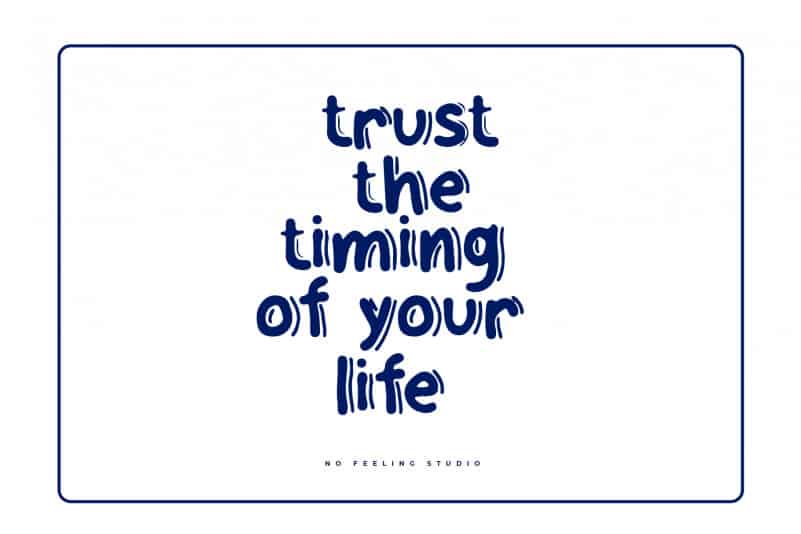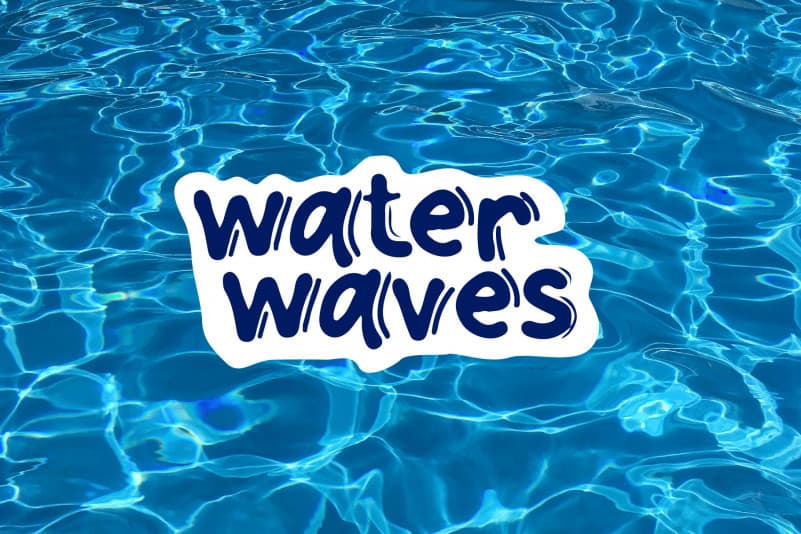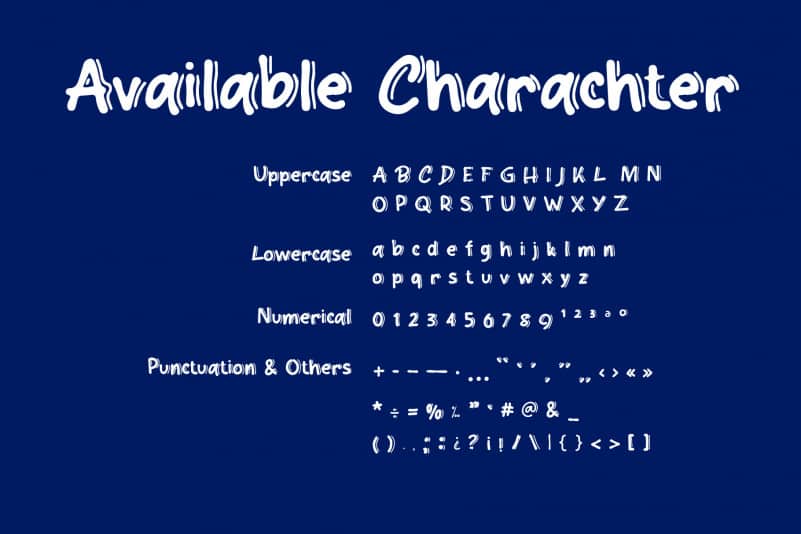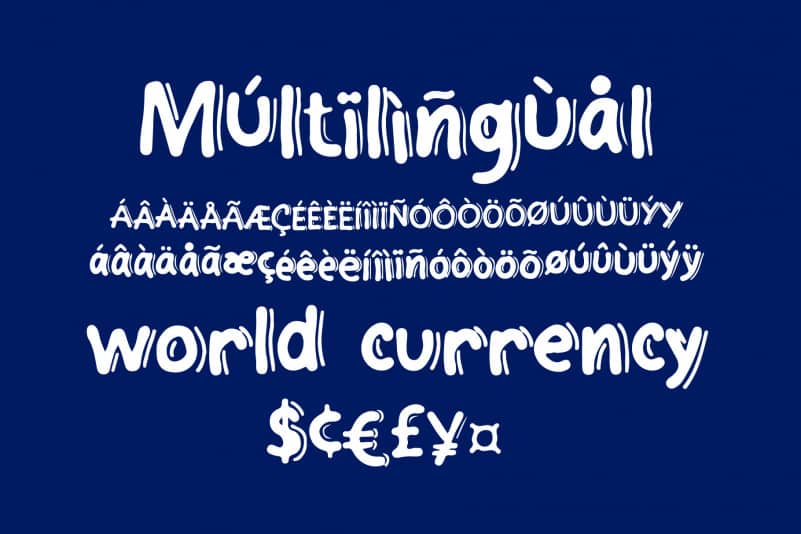
Softeraphy Display Font
Softeraphy Display Font is unique display typeface, drawn in cartoon style to make any design look fresh! Your project will surely be more fun with this font!